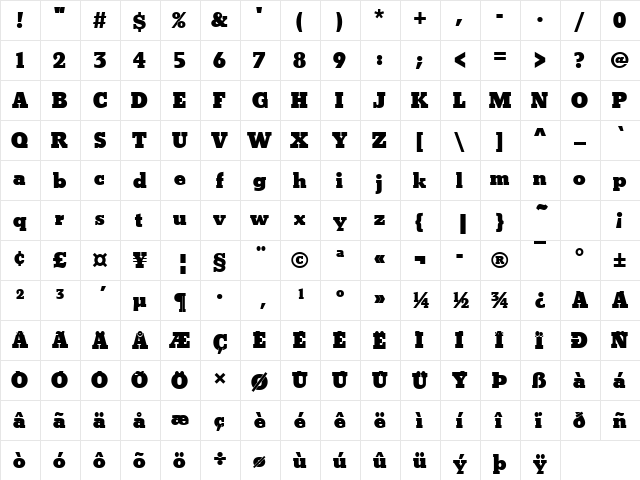
BetonPExtBol Regular
Design Context for BetonPExtBol Typeface
BetonPExtBol is a composed and adaptable typeface that performs quietly and consistently across a wide range of design contexts.
Pro Tip: Use BetonPExtBol in both headline and body roles to test its range before committing to a single application.